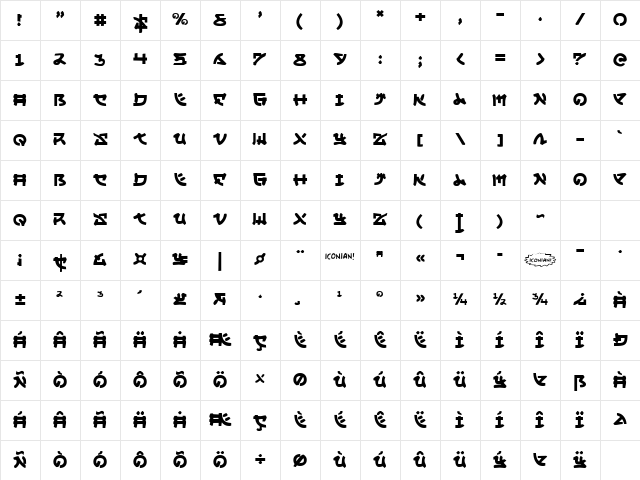
Yama Moto Regular Free Font
Yama Moto Regular
Yama Moto Family
Yama Moto Regular
Design Context for Yama Moto
Yama Moto is a composed and adaptable typeface that performs quietly and consistently across a wide range of design contexts.